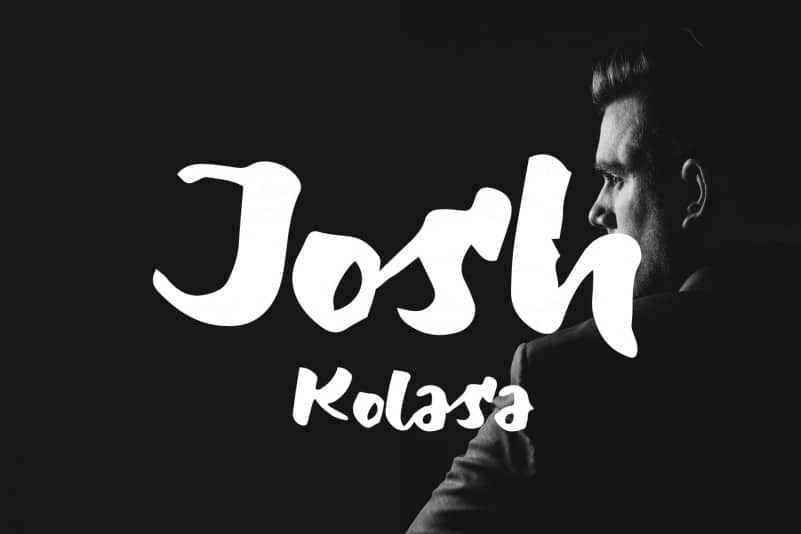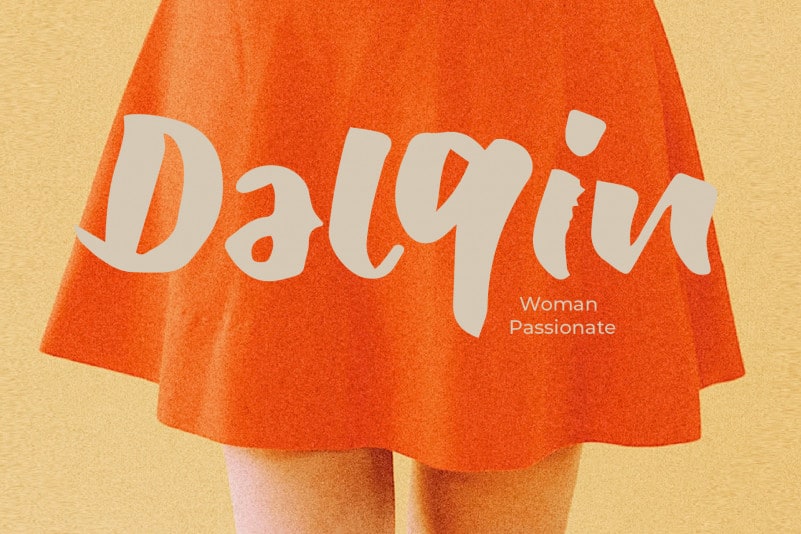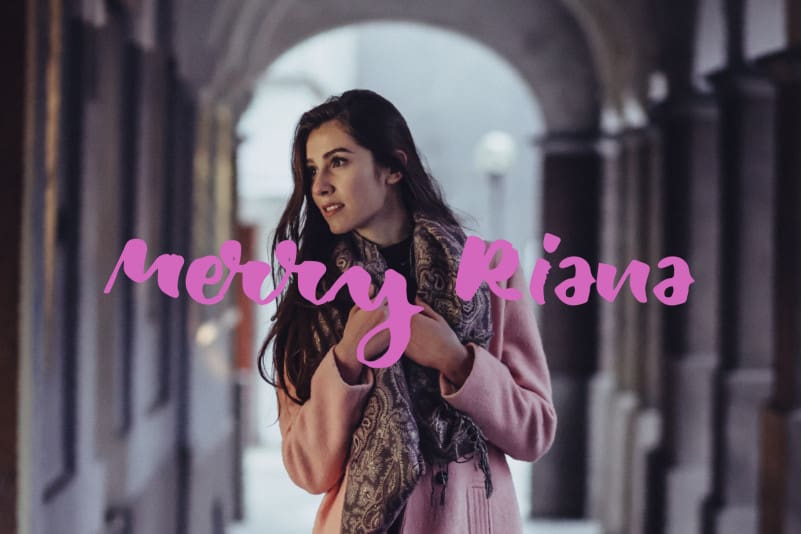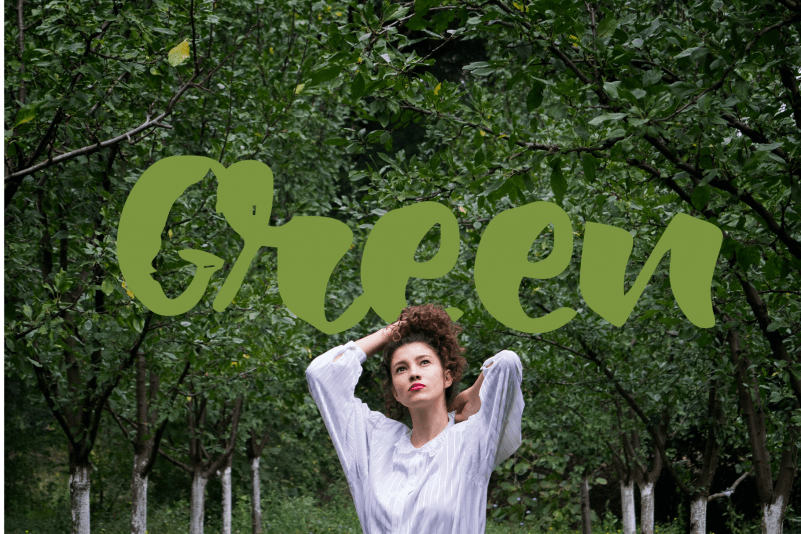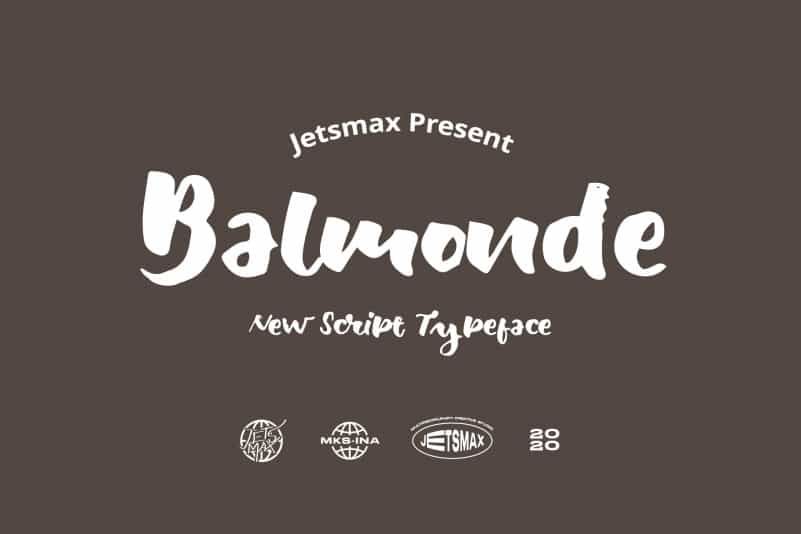
Balmonde Script Font
Balmonde Script Font is a whimsical handwritten font, that will make any project stand out! With its neat arrangement of letters, this typeface will look incredibly beautiful in both formal and non-formal designs.
Balmonde Script Font gives a gorgeous feel to a variety of branding projects, logos, wedding designs, social media posts, advertisements, and so much more. Let your imagination run free!